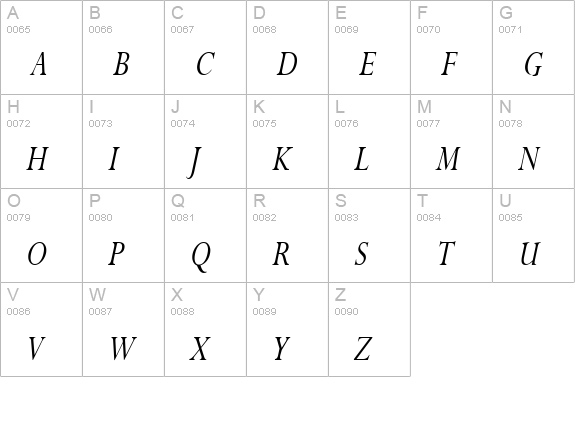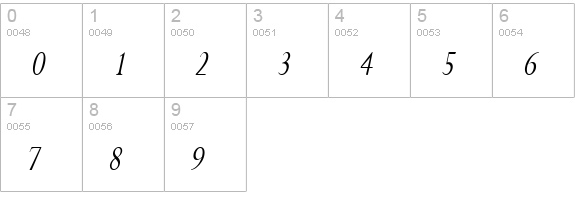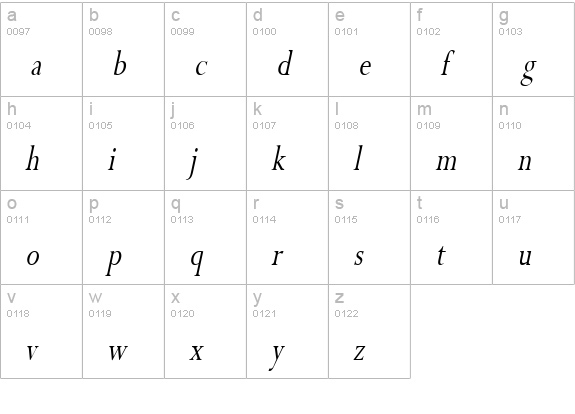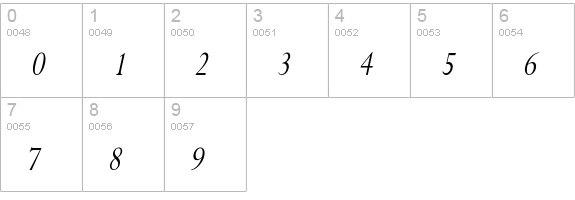
Rapid Thin Italic is a delicate, low-contrast, italic variant in the Rapid typeface family \xE2\x80\x94 well suited to fashion editorial, minimal branding, and high-contrast display.
Rapid Thin Italic is a stunning and elegant font that effortlessly combines sleekness and sophistication. With its slender yet dynamic letterforms, this font exudes a sense of speedy agility and modernity. The thin strokes and italicized design create a visually captivating effect, making it perfect for projects that require a touch of finesse and style. This font is not only visually appealing but also incredibly versatile. It can be used in a wide range of design projects, from branding and packaging to editorial layouts and web designs. Whether you are creating a logo for a high-end fashion brand or designing an elegant wedding invitation, Rapid Thin Italic will add a touch of class and refinement to your work. One of the best aspects of Rapid Thin Italic is that it is available for free download at FontsMarket.com. This means that you can easily access this beautiful font and incorporate it into your designs without any cost. FontsMarket.com offers a wide range of premium fonts that are freely available for personal and commercial use. With a simple click, you can enhance your design projects with this stunning and versatile font. So why wait? Download Rapid Thin Italic today and experience the power of this sleek and stylish font. Whether you are a professional designer or a creative enthusiast, this font will undoubtedly elevate your designs to new heights. Don't miss out on the opportunity to add a touch of elegance and sophistication to your projects. Visit FontsMarket.com now and enjoy the beauty of Rapid Thin Italic, completely free of charge.